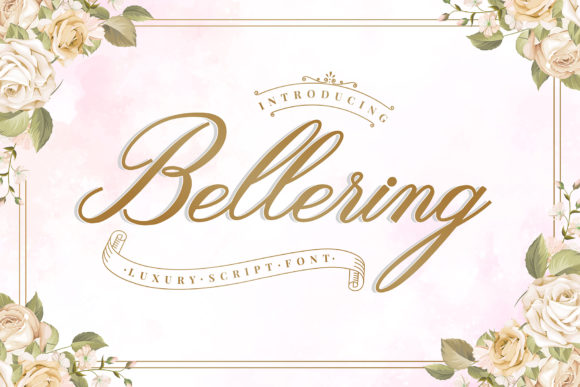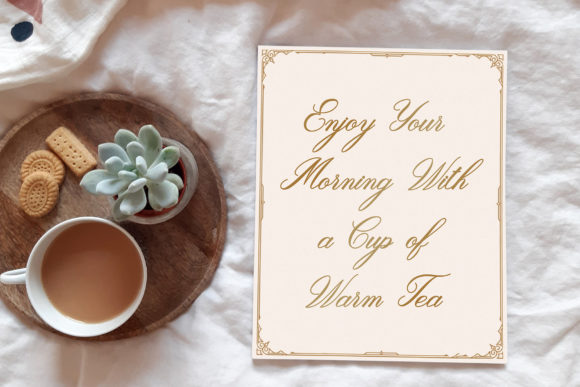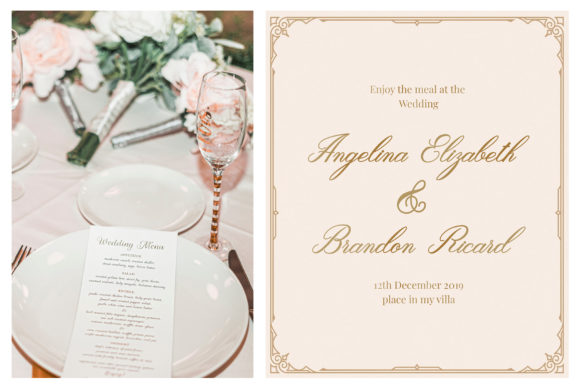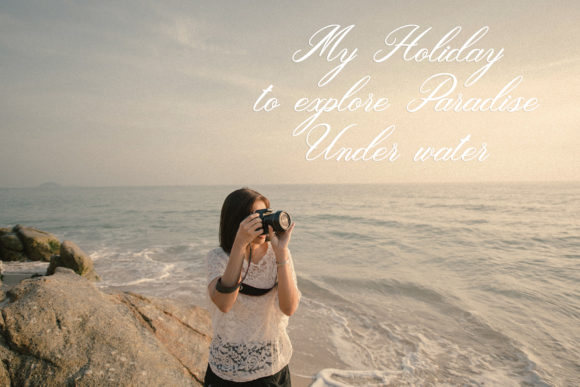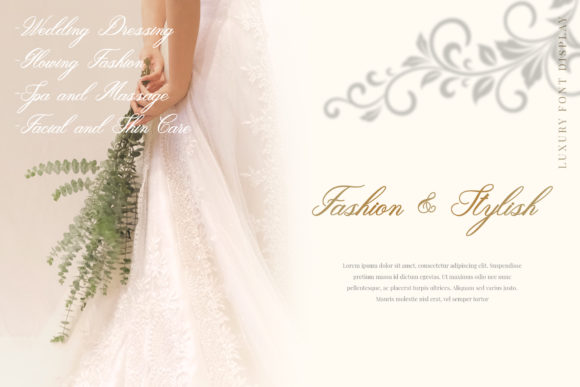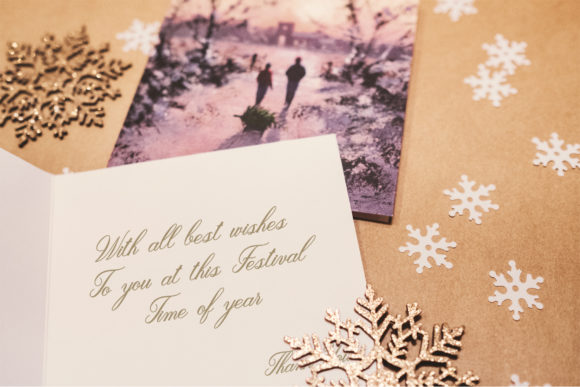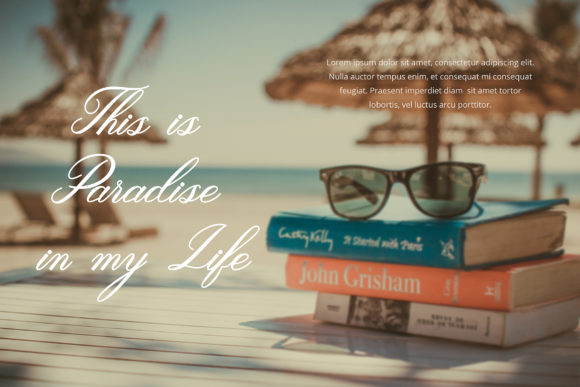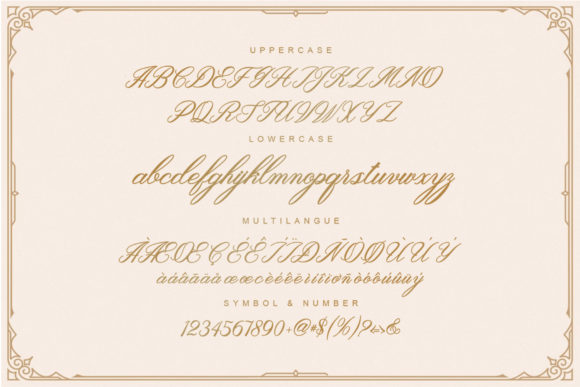
Bellering Font
About Bellering Font
Bellering is inspired by classic typography and brings its own unique style to any design project. This fantastic script font is best suited for headlines of all sizes, as well as for blocks of text that have both maximum and minimum variations.